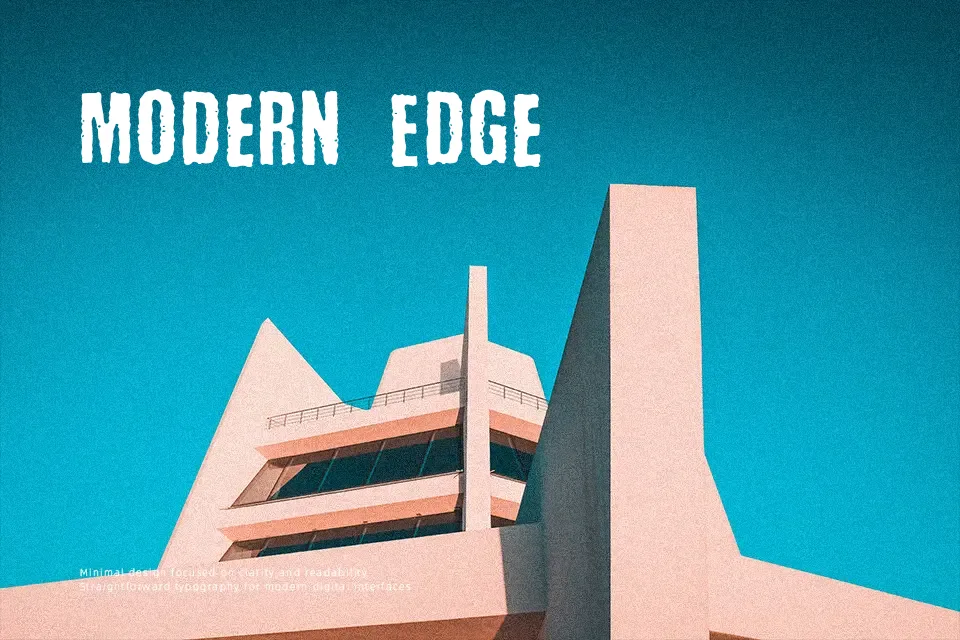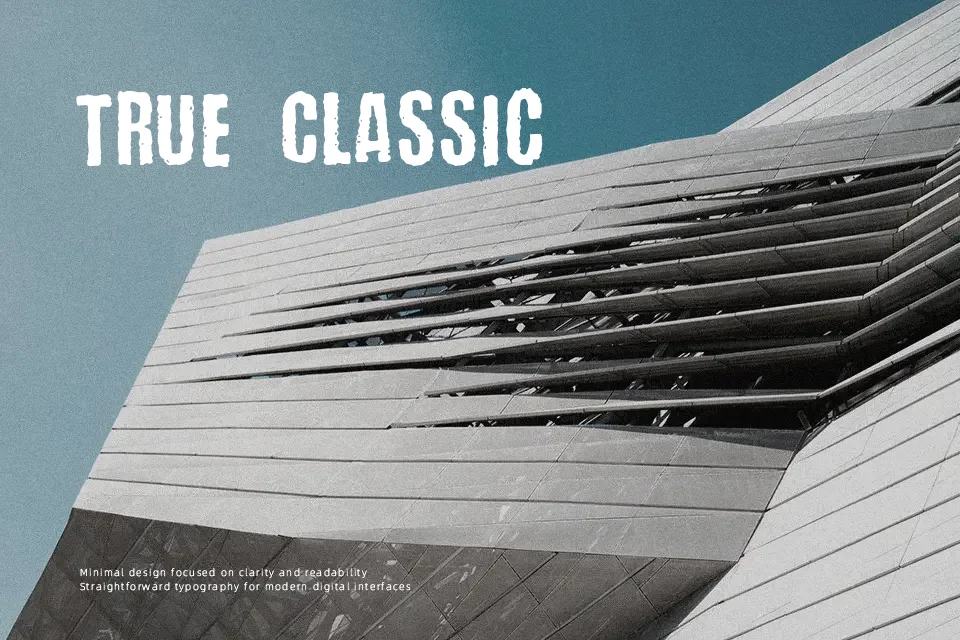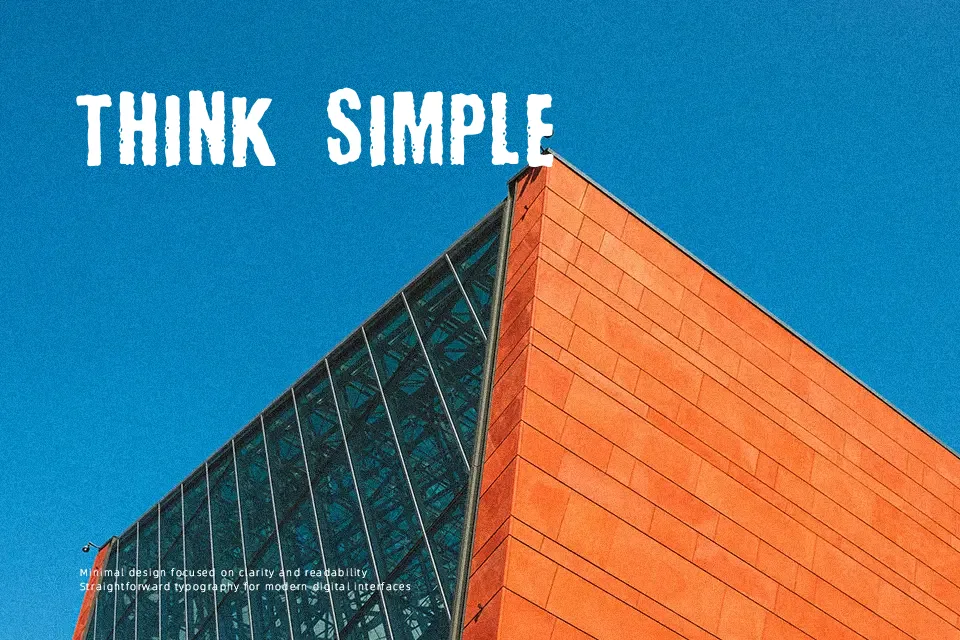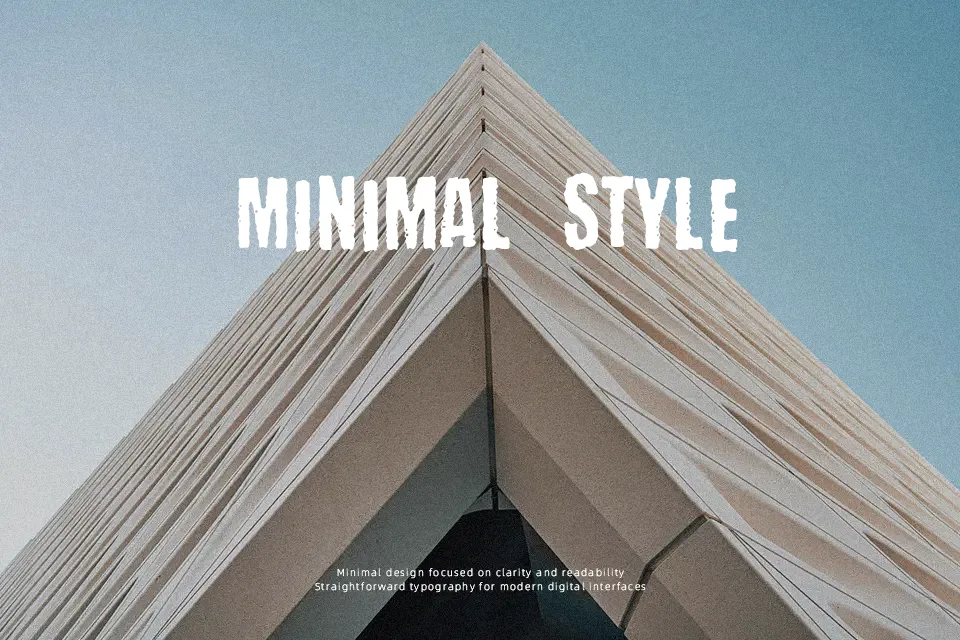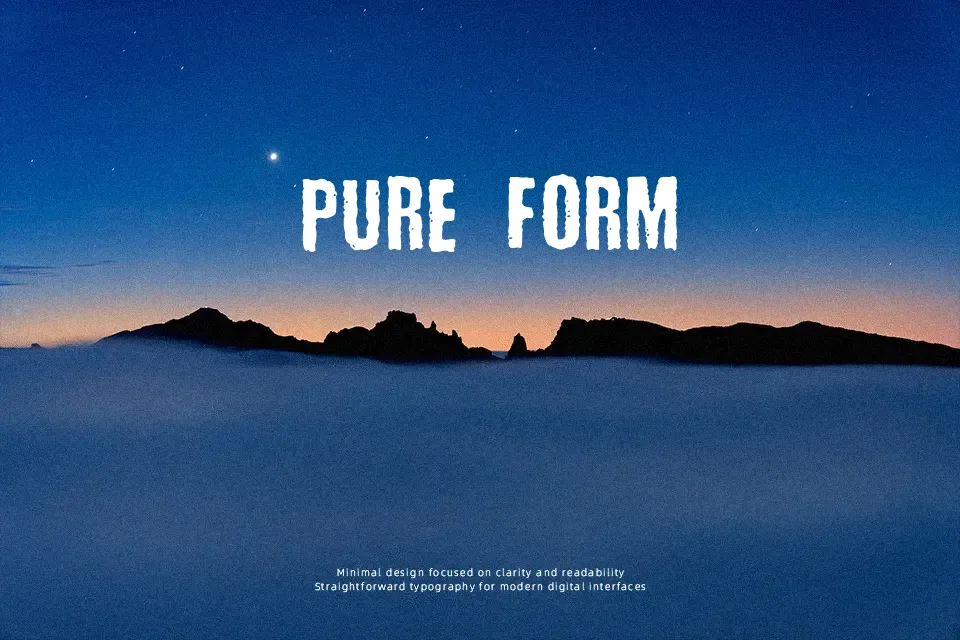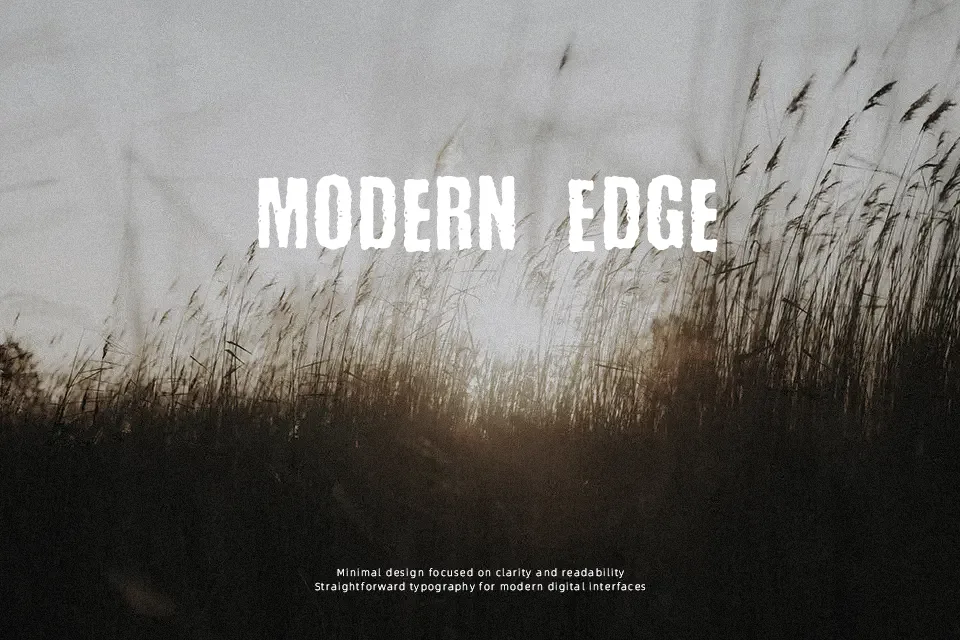
Baroness Kuffner Font
Designed by Bumbayo Font Fabrik
Baroness Kuffner carries the fingerprints of hand-pressed letterpress gone slightly wrong — in the best way. Strokes are uneven with visible texture roughness, lending each character a distressed, analog quality that feels deliberately imperfect. Inspired by B-movie posters and Universal Horror film visuals of the 1930s, it leans heavily decorative and atmospheric rather than functional. It earns its place on gig posters, underground magazine headers, and horror event branding where rawness is an asset. That said, its high visual noise makes it a poor fit for anything requiring sustained reading — small sizes collapse into illegibility, and the irregular edges undermine credibility in formal contexts. When the project calls for edge and unease, it delivers without effort; when clarity is the priority, it actively works against you.
Best For:- Horror event or Halloween poster headers
– Punk and metal band merchandise
– Underground zine or editorial accent text
– Retro grunge social media graphics
Not Ideal For:- Body text or multi-line paragraphs
– Corporate or professional branding
– Digital UI elements or navigation labels
– Small-size print such as business cards or footnotes
Perfect for branding, editorial, and halloween, with a dark and decorative style.